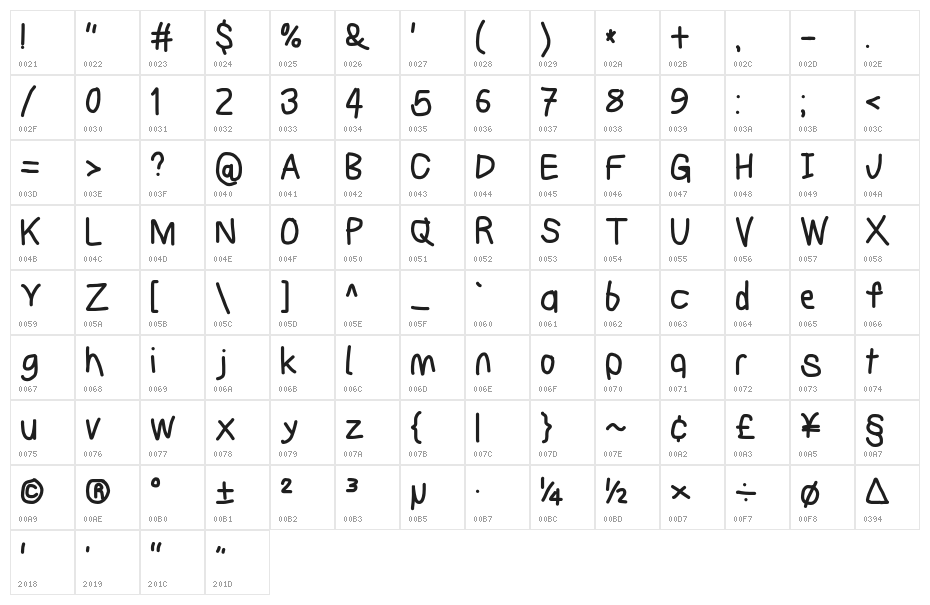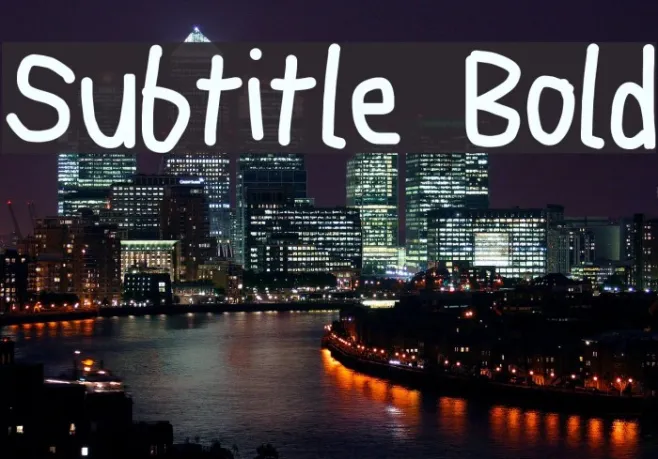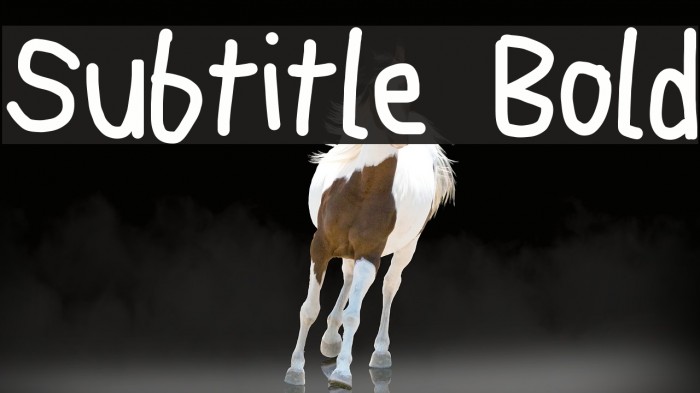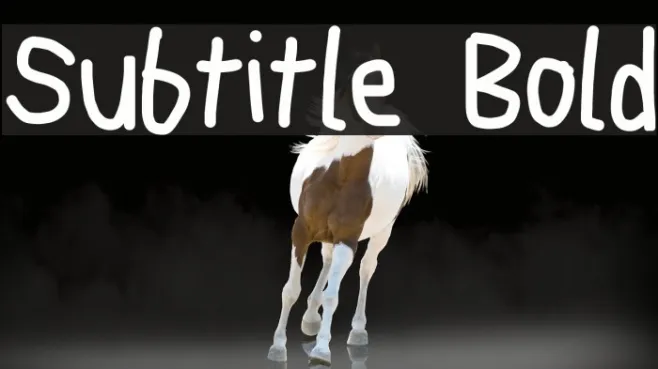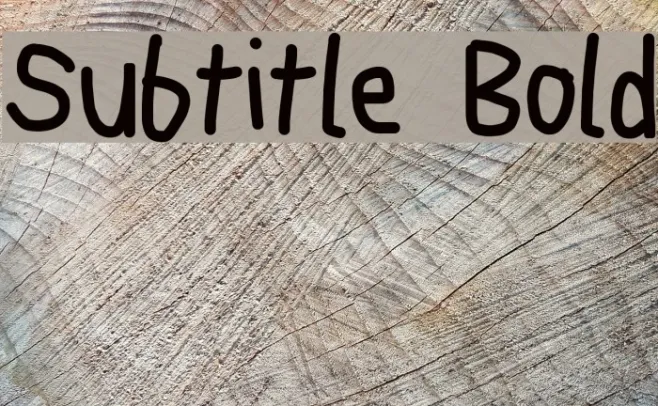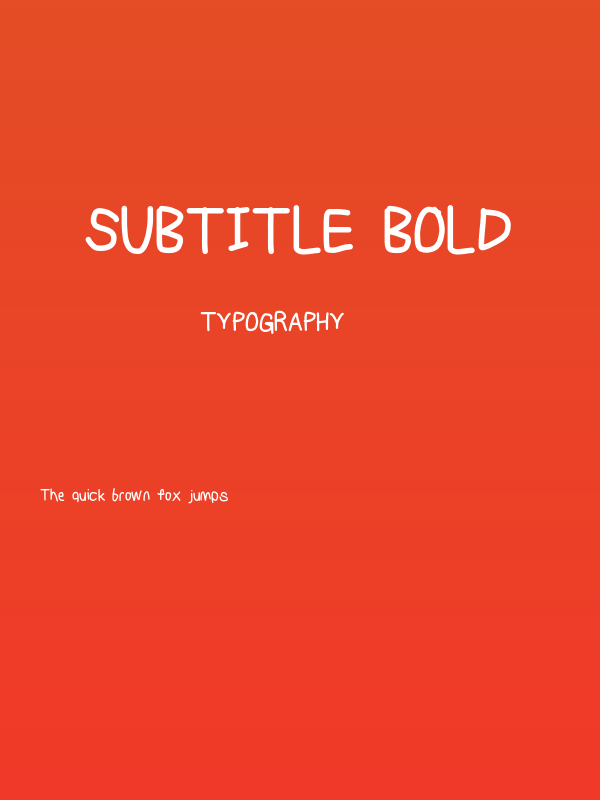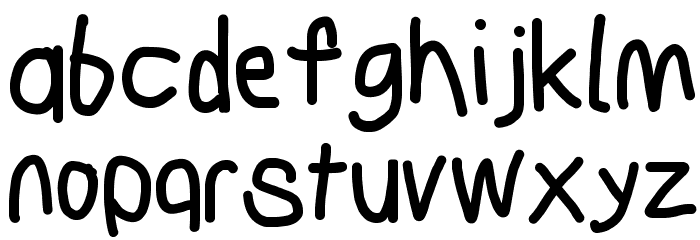
Subtitle Bold Font
Subtitle Bold Description
This font features a playful and informal handwritten style, characterized by its rounded and slightly irregular letterforms. The strokes are consistent in weight, giving it a bold appearance, while maintaining a friendly and approachable aesthetic. The uppercase and lowercase letters are well-balanced, with a slight tilt that adds to its casual charm. The numerals and special characters are designed to match the overall style, ensuring cohesion across all elements. This font is versatile, suitable for projects that require a touch of personality and warmth.
| Proposed Projects | Ideal for children's books, casual branding, greeting cards, and playful social media graphics. |